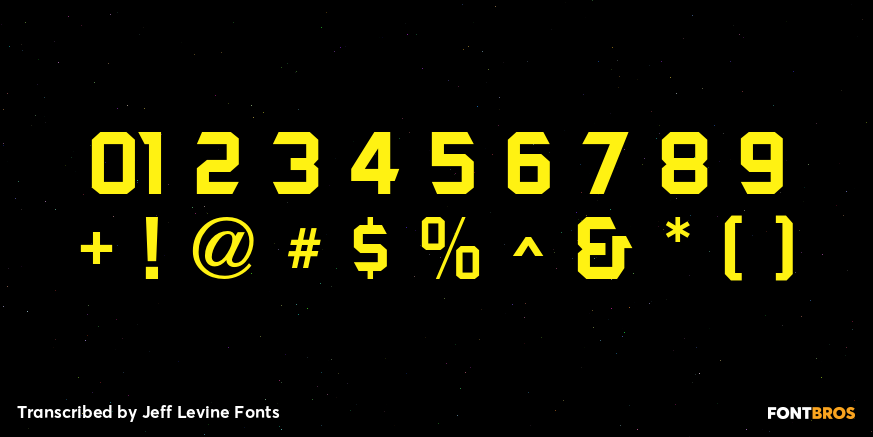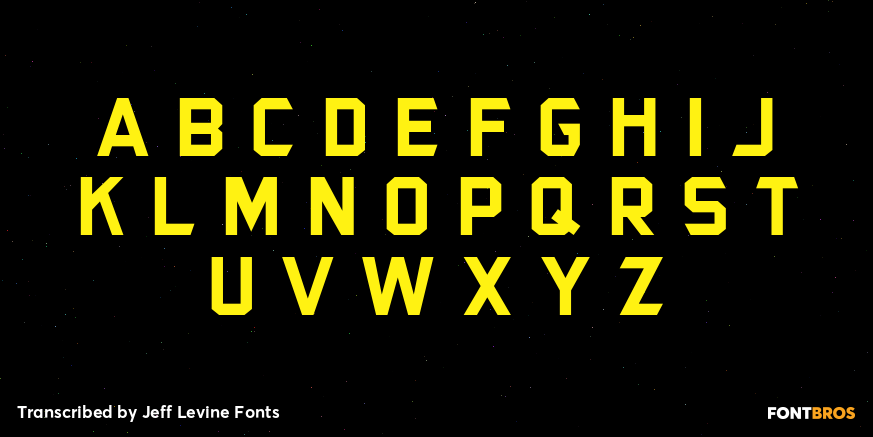
Transcribed
The term 'transcribed' takes on many definitions. In sheet music (the source of this type face design) it means to set down onto paper. In the formative days of radio, and until the advent of the tape recorder, radio stations depended on 16 inch wide recordable discs known as transcriptions.
These discs were generally aluminum base with a soft lacquer coating that was cut with a heated stylus. This was the only way a program could be recorded and preserved for later broadcast or copied for syndication.
Transcribed JNL is a hand lettered sans in the chamfer style of block lettering, based on vintage sheet music displaying the name and address for Zenith Music Publications.